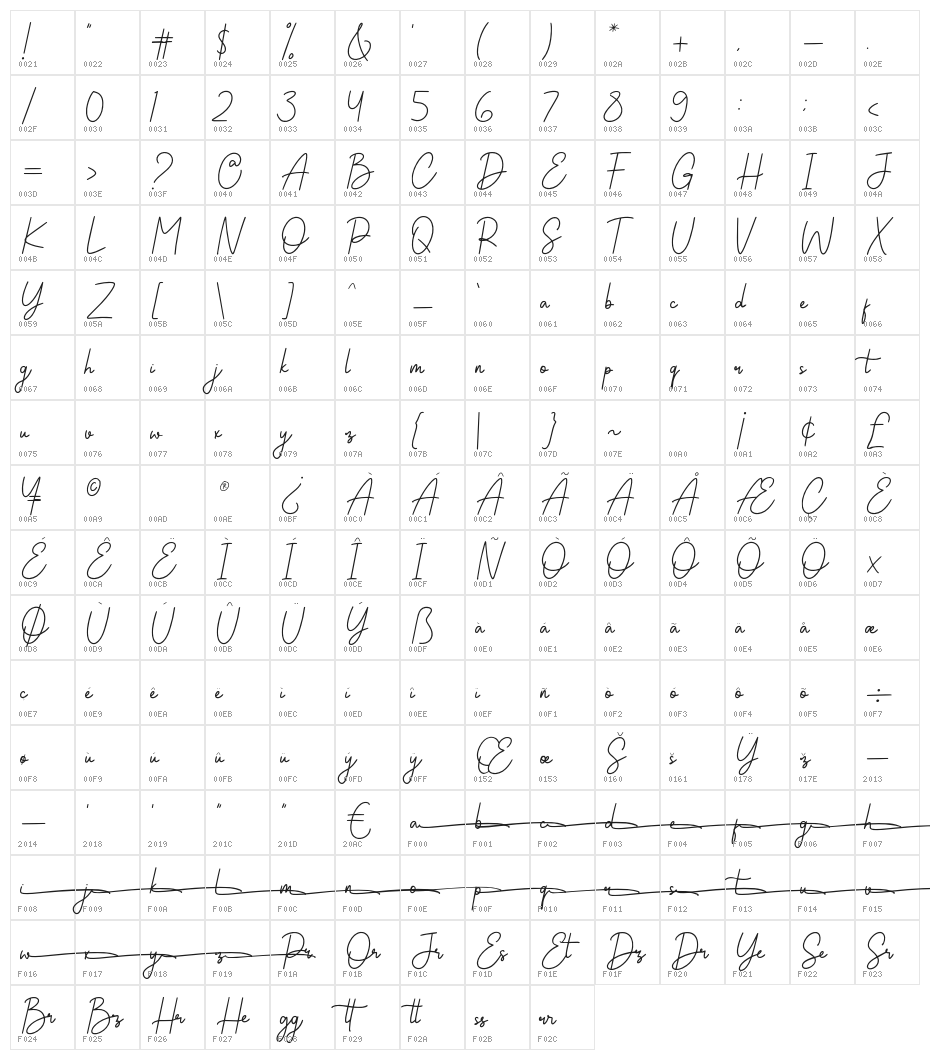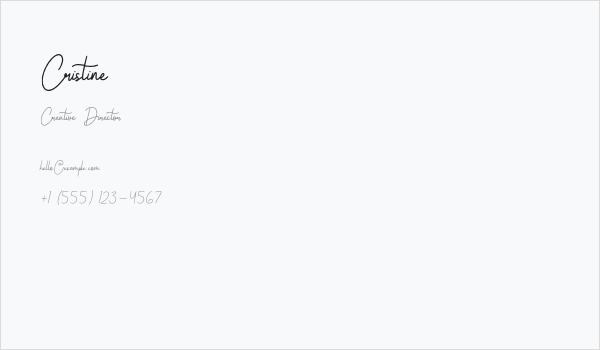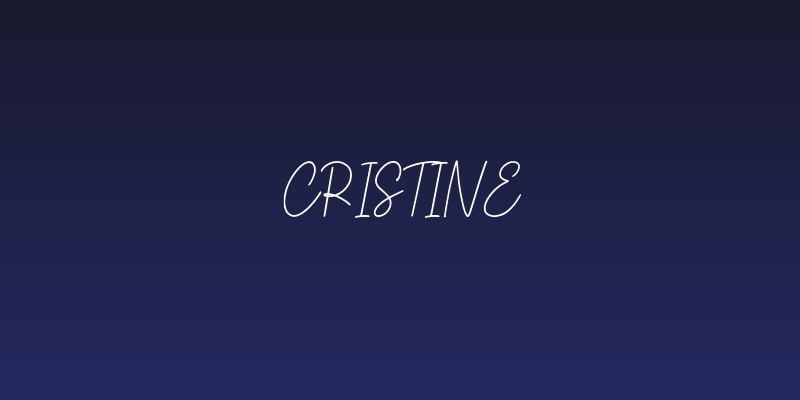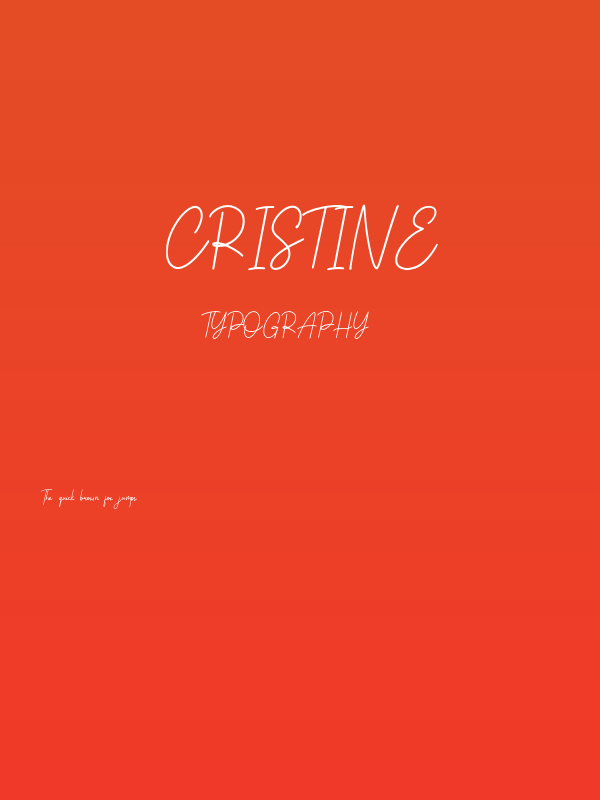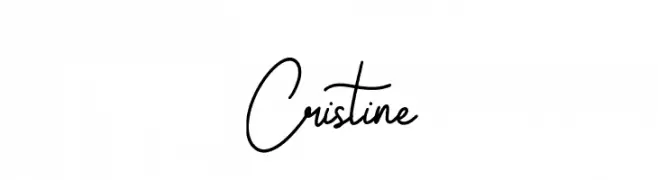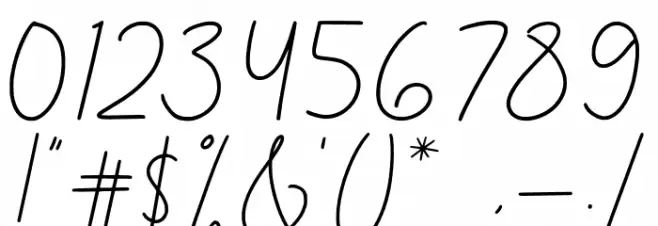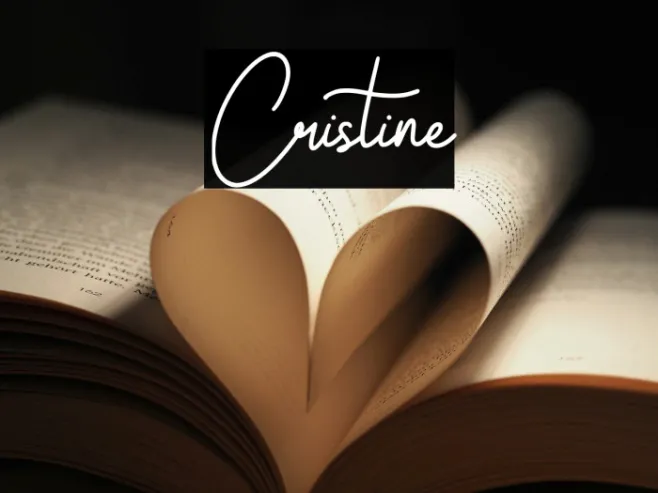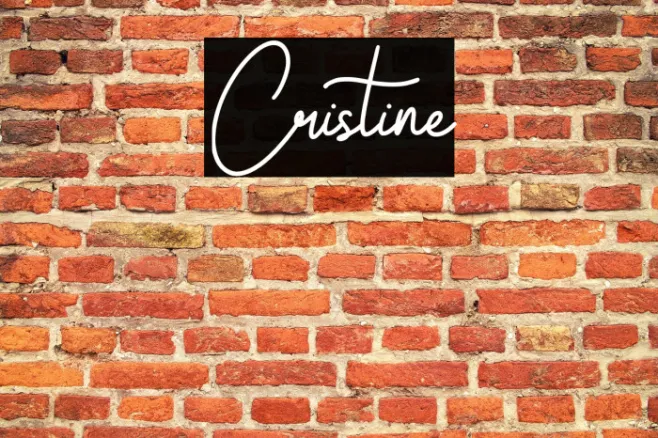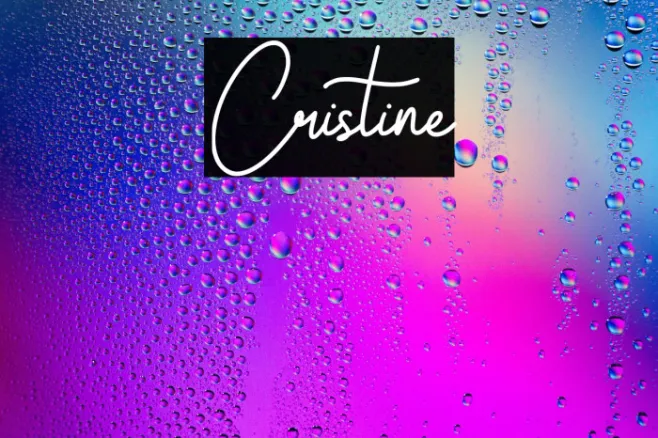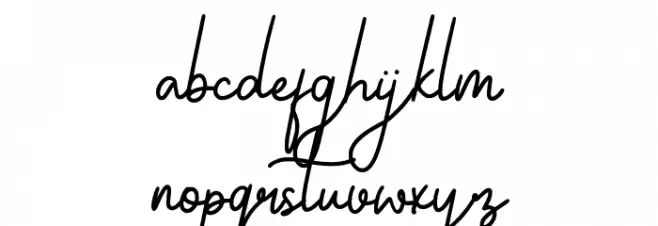
Cristine Font
Cristine Description
A playful, handwritten script font with a casual and flowing style, featuring slightly irregular strokes and a personal touch.
| Use Case | Logos, Invitations, Personal notes |
| Proposed Projects | Greeting cards, personal branding, invitations. |